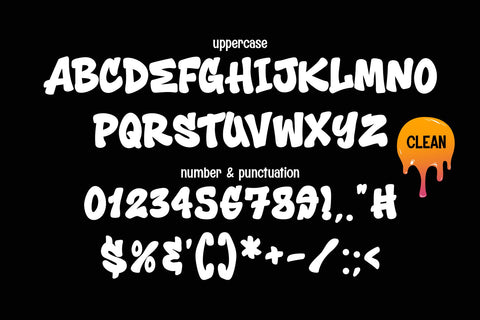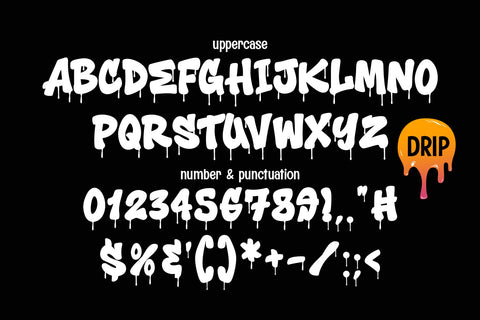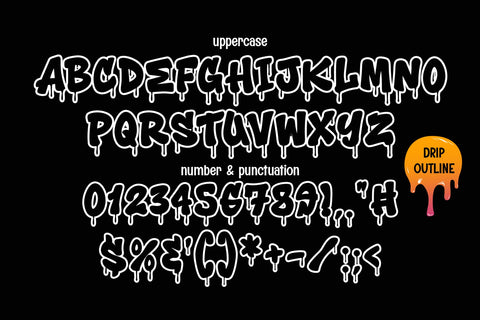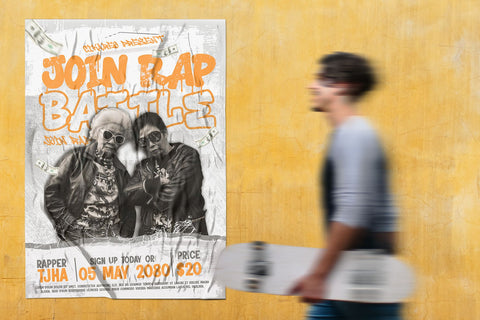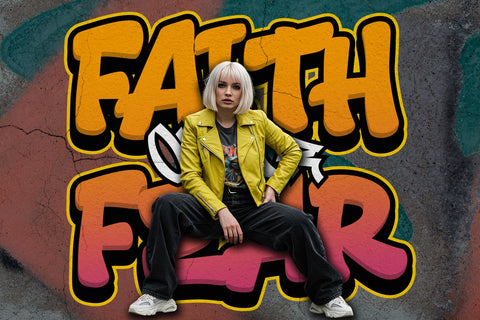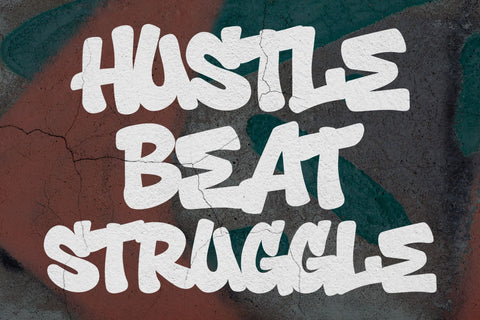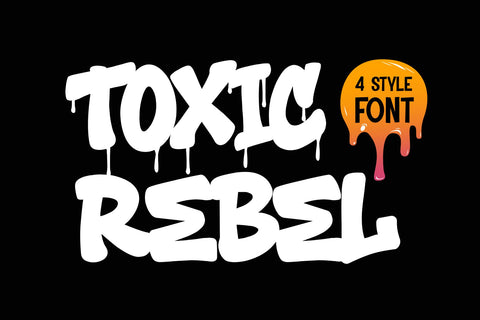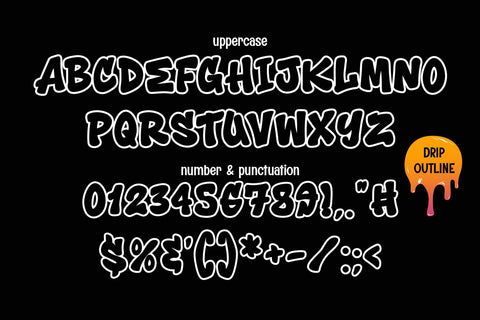
Toxic Rebel | Urban Graffiti Energy Dripping Outline Font
Toxic Rebel is a graffiti-inspired design built with 4 bold styles: Clean Regular, Drip, Outline Regular, and Outline Drip. Each version offers a different way to express urban creativity, from solid and simple to dripping wild strokes and outlined versatility. Designed with street culture in mind, it balances edgy style with modern usability, making it perfect for apparel, posters, skate branding, social media, and digital projects. Whether you need clean legibility or rebellious energy, Toxic Rebel delivers bold impact every time.